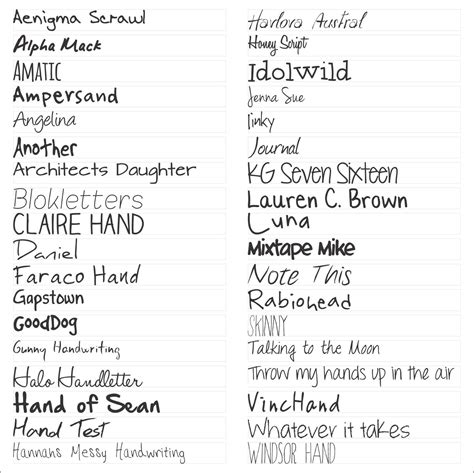
Different Writing Styles Fonts For 2023
What is a Writing Style Font?
Writing style fonts are fonts that are used in various types of writing. They can range from simple and classic to modern and decorative. They are the primary tool used to communicate with readers and can be used to create a particular mood or tone. Writing style fonts are used in books, magazines, newspapers, websites and other forms of writing. They can also be used to create a particular look or feel for a website or blog.
Why are Writing Style Fonts Popular?
Writing style fonts are popular because they allow writers to express themselves in a unique way. They can be used to create a certain atmosphere or to make a statement. Different writing style fonts can be used to create a certain degree of visual appeal, making a website or blog look more appealing and professional. They can also be used to create a certain tone or emotion in a piece of writing.
What are the Most Popular Writing Style Fonts for 2023?
The most popular writing style fonts for 2023 include serif fonts like Garamond, Times New Roman, and Georgia; sans serif fonts like Arial and Helvetica; and monospace fonts like Courier and Monaco. Each of these fonts has its own unique characteristics and can be used in different ways. For instance, serif fonts are usually used for formal documents and books, while sans serif fonts are often used for online content and casual writing. Monospace fonts, meanwhile, are best used for coding and programming.
What Other Writing Style Fonts Should I Consider?
In addition to the popular writing style fonts mentioned above, you should also consider other fonts such as script fonts, modern fonts, display fonts, and decorative fonts. Script fonts are often used for formal documents and invitations. Modern fonts are often used for websites and blogs. Display fonts are often used for headlines or titles, while decorative fonts can be used to create a certain look or feel.
How Can I Find the Right Writing Style Font for Me?
Choosing the right writing style font for your project can be a difficult task. It is important to consider the type of writing you are doing and the look or feel you want to create. Once you have a good idea of what you are looking for, you can begin searching for fonts. There are a variety of websites that offer free and paid writing style fonts, so you can easily find the right font for your project. Additionally, there are websites that provide tutorials on how to use different fonts to create the look or feel you want.